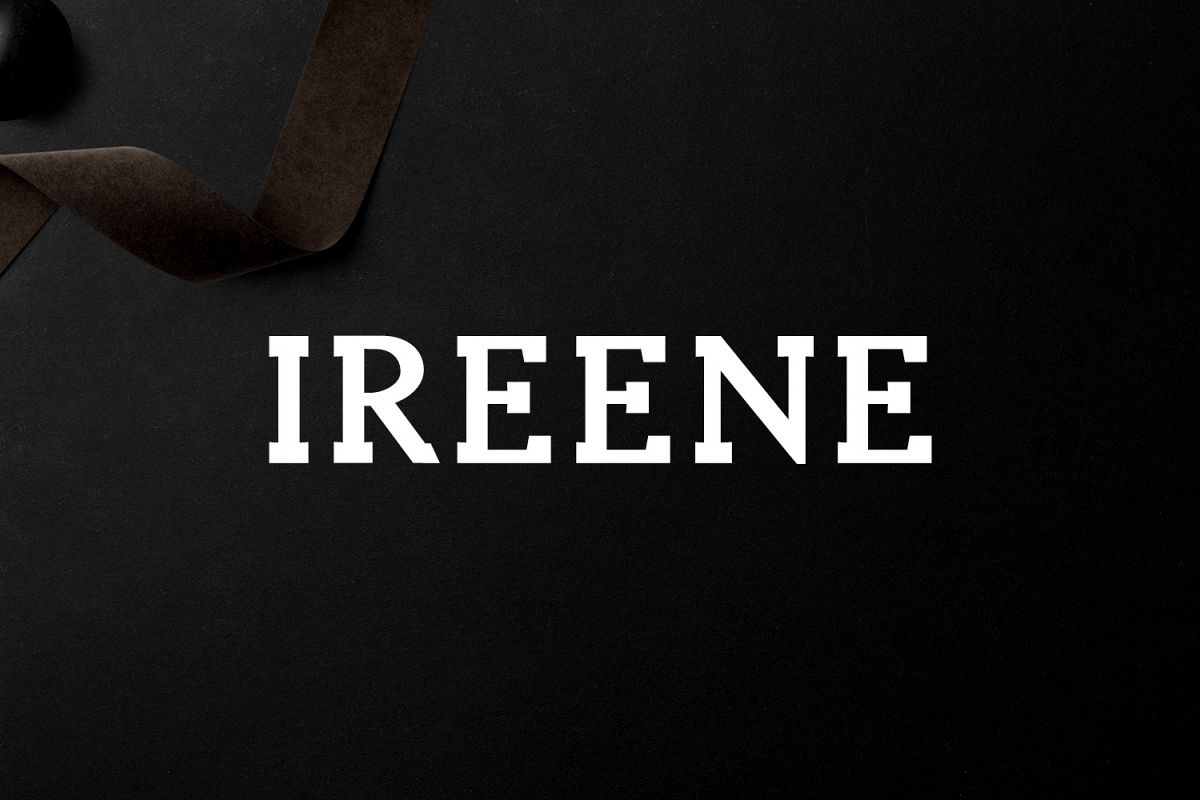
Ireene Serif 3 Font Family Pack
Ireene-Outline
Ireene-Regular
Ireene-Bold
Ireene Serif 3 Font Family Pack features unique and modern serif look and feel. Perfect for gorgeous logos, titles, web layouts and branding. It looks gorgeous in all caps with a wide-set spacing if you want to try a classy look, or beautiful on its own in capital and lowercase letters for something completely timeless.
• Font Weight: Regular, Outline and Bold
Ireene Font Features:
• Uppercase Multilingual Letters
• Lowercase Multilingual Letters
• Alternative